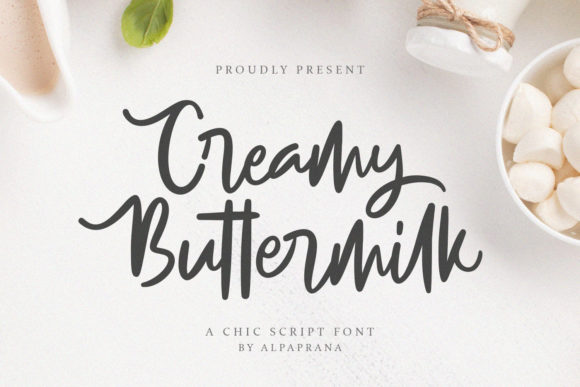
Creamy Buttermilk Font
Imagine a font that feels like a warm, comforting hug—soft, approachable, and effortlessly charming. Creamy Buttermilk is exactly that: a casual handwritten font with an authentic and inviting look that brings a sense of personality to any design project. With its cute swashes and gentle curves, this font offers a unique blend of playfulness and professionalism, making it ideal for creative projects that demand both visual appeal and readability. As a designer, you know how important it is to find the right typeface that speaks to your brand’s voice, and Creamy Buttermilk delivers in spades.
Why Creamy Buttermilk Stands Out in Modern Typography
In today’s fast-paced digital world, typography plays a crucial role in shaping user experience and brand perception. Creamy Buttermilk stands out because of its versatility and character. It's PUA encoded, which means you can easily access all of its glyphs and swashes without needing additional tools or plugins. This makes it a breeze to use in your design workflow, whether you're working on a logo, social media post, or packaging concept.
The font’s casual aesthetic aligns perfectly with modern design trends that prioritize authenticity and emotional connection. Its soft, flowing lines and subtle imperfections mimic real handwriting, giving your designs a human touch that resonates with audiences. This is especially valuable in branding and marketing, where relatability and trust are key.
Practical Applications for Creamy Buttermilk
Creamy Buttermilk isn’t just visually appealing—it’s also incredibly functional across a wide range of creative applications. Here are some of the most effective ways to use it:
- Branding and Logo Design: Use it to add warmth and friendliness to your brand identity. It works well with minimalist logos or more playful ones, depending on your brand’s tone.
- Social Media Graphics: The font’s charm shines through in posts, stories, and banners, helping to capture attention and encourage engagement.
- Website and UI Design: Incorporate it into headings, call-to-action buttons, or navigation menus for a friendly yet professional feel.
- Packaging Design: Its handcrafted look adds a personal touch to product labels, wrapping, and promotional materials.
- Digital Products: Perfect for creating e-books, course materials, or printable templates that require a welcoming and approachable style.
Design Tips for Using Creamy Buttermilk Effectively
To ensure that Creamy Buttermilk enhances your designs rather than detracts from them, consider these tips:
1. Maintain Consistency: While the font has a casual feel, using it consistently across your brand’s visual elements helps reinforce recognition and trust.
2. Pair with Complementary Fonts: Balance its informal nature by pairing it with a clean sans-serif font for body text. This creates a strong visual hierarchy and improves readability.
3. Consider Color and Contrast: Choose a color palette that complements the font’s softness. Warm tones like cream, beige, or pastel shades often work best, but don’t be afraid to experiment with bolder colors for contrast.
4. Use Swashes Sparingly: The cute swashes add character, but overusing them can make your design feel cluttered. Apply them selectively to headings or accents for maximum impact.
5. Ensure Scalability: Test the font at different sizes to confirm it remains legible and maintains its charm across various platforms and devices.
By thoughtfully integrating Creamy Buttermilk into your design projects, you can elevate your visual communication, create memorable brand experiences, and connect more deeply with your audience. Whether you're crafting a new brand identity or updating your existing one, this font is a valuable asset that brings both creativity and clarity to your work.